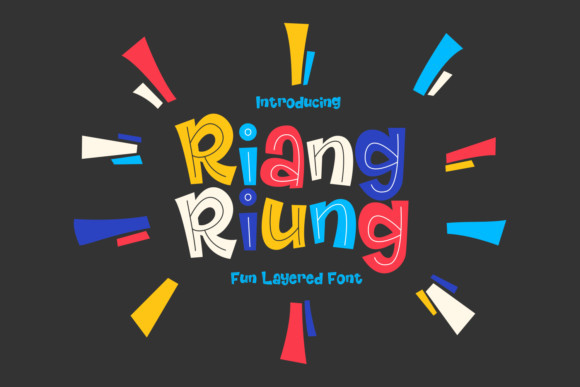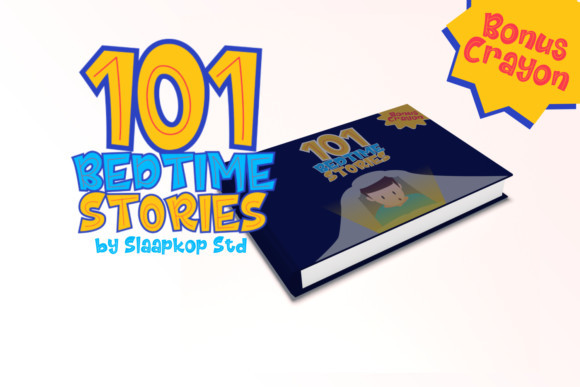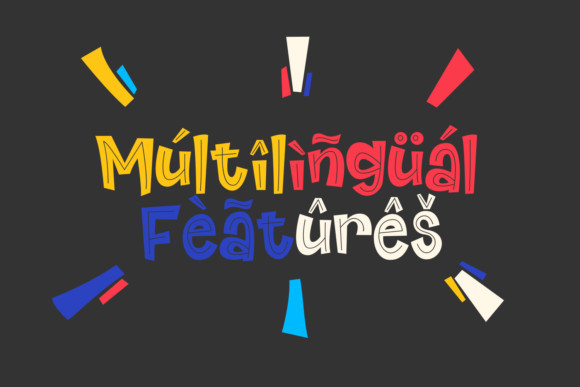
Riangriung Font
Riangriung is a playful and charming display font that will make any kids’ project stand out. Play around with its different layers and achieve fun, dynamic and absolutely unique design results!